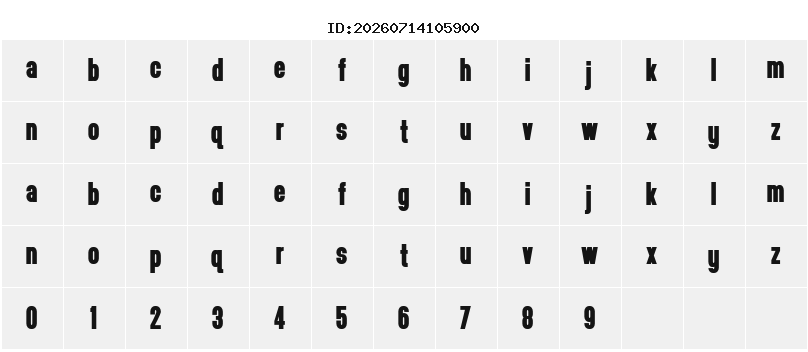
headthinker Preview
• Font Name: headthinker
• Full Font Name: headthinker
About headthinker.otf
headthinker.otf is a modern, elegant sans-serif font designed for ultimate readability and visual harmony. Perfect for branding, headlines, web design, and print materials.